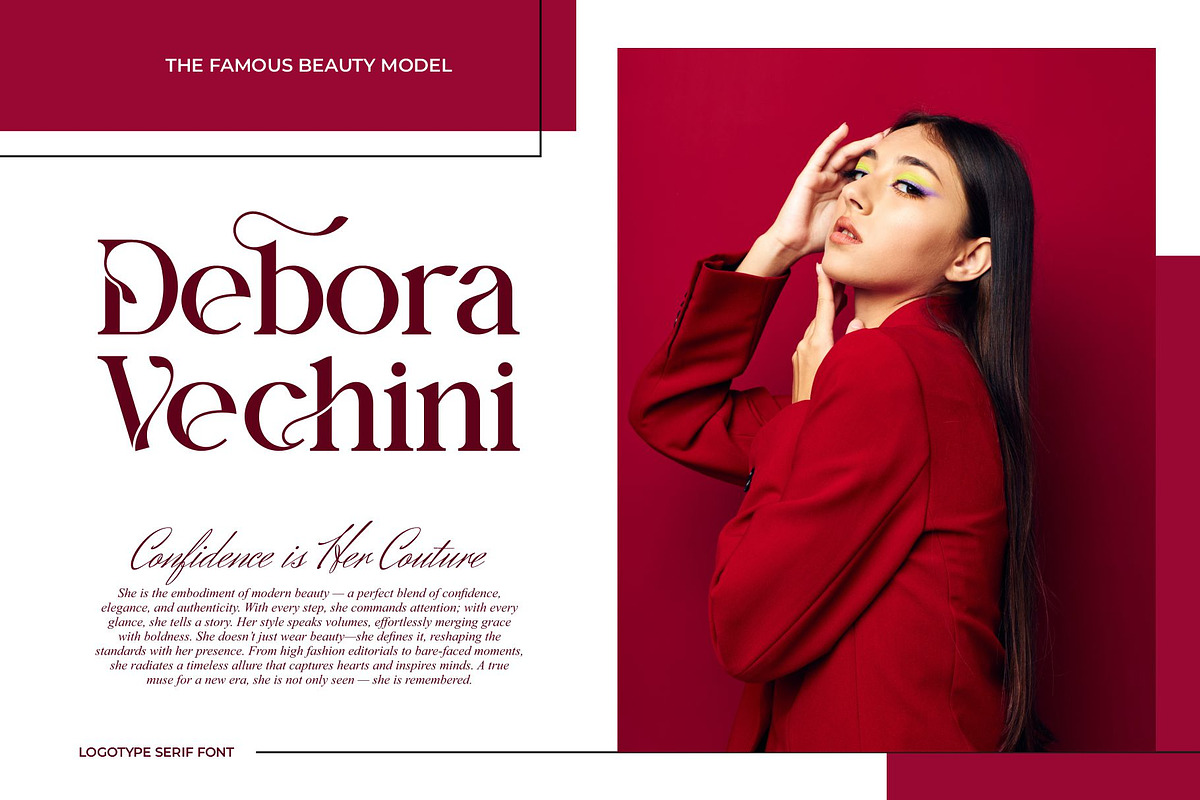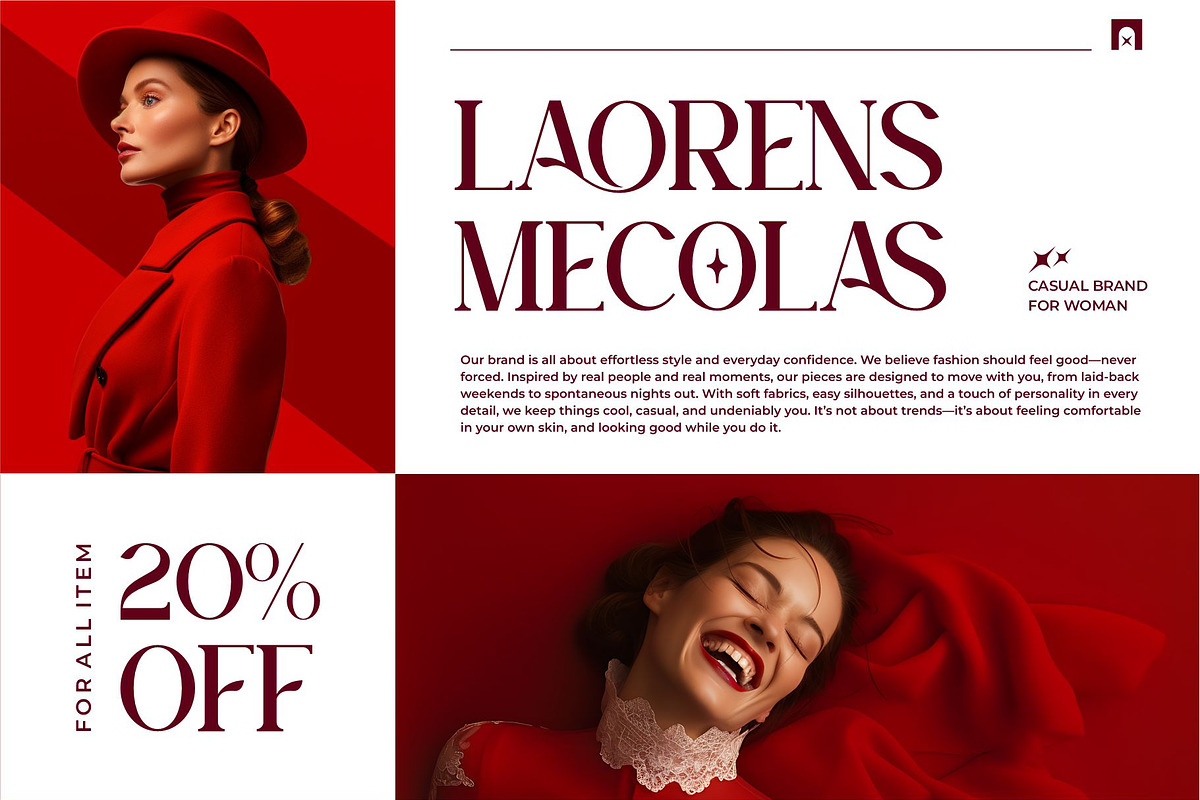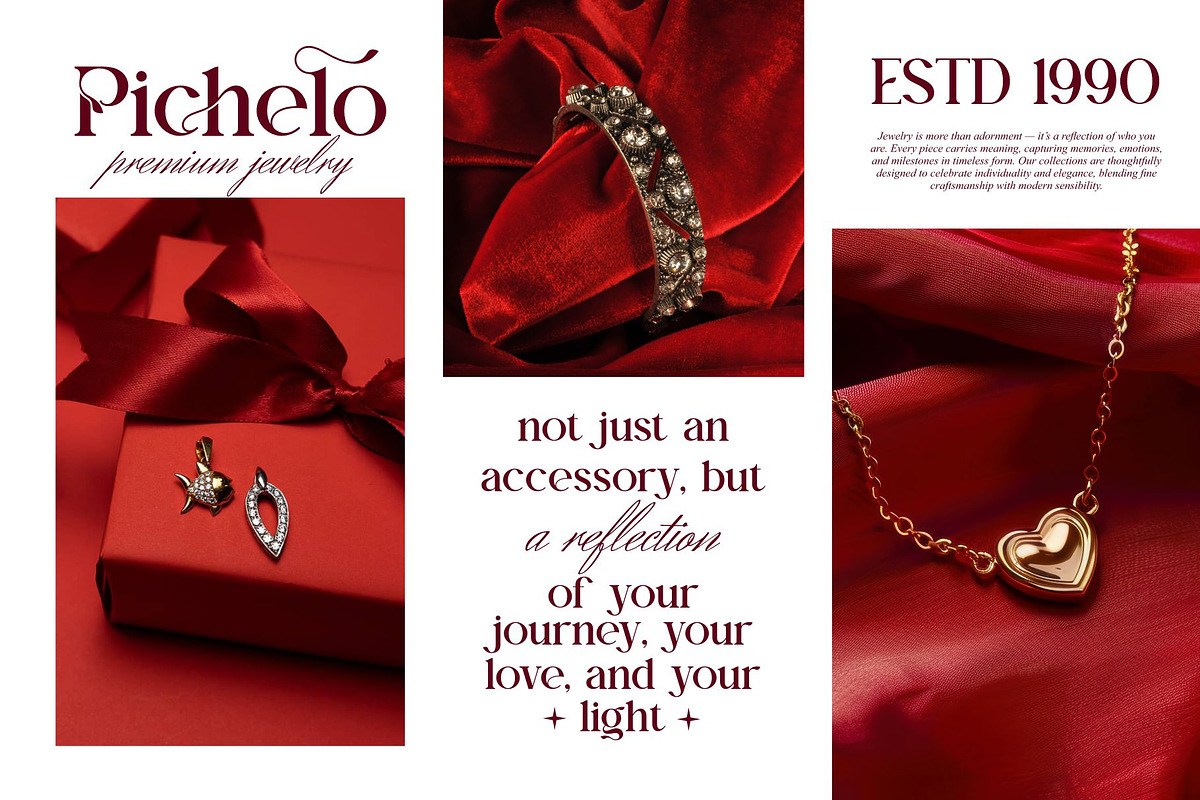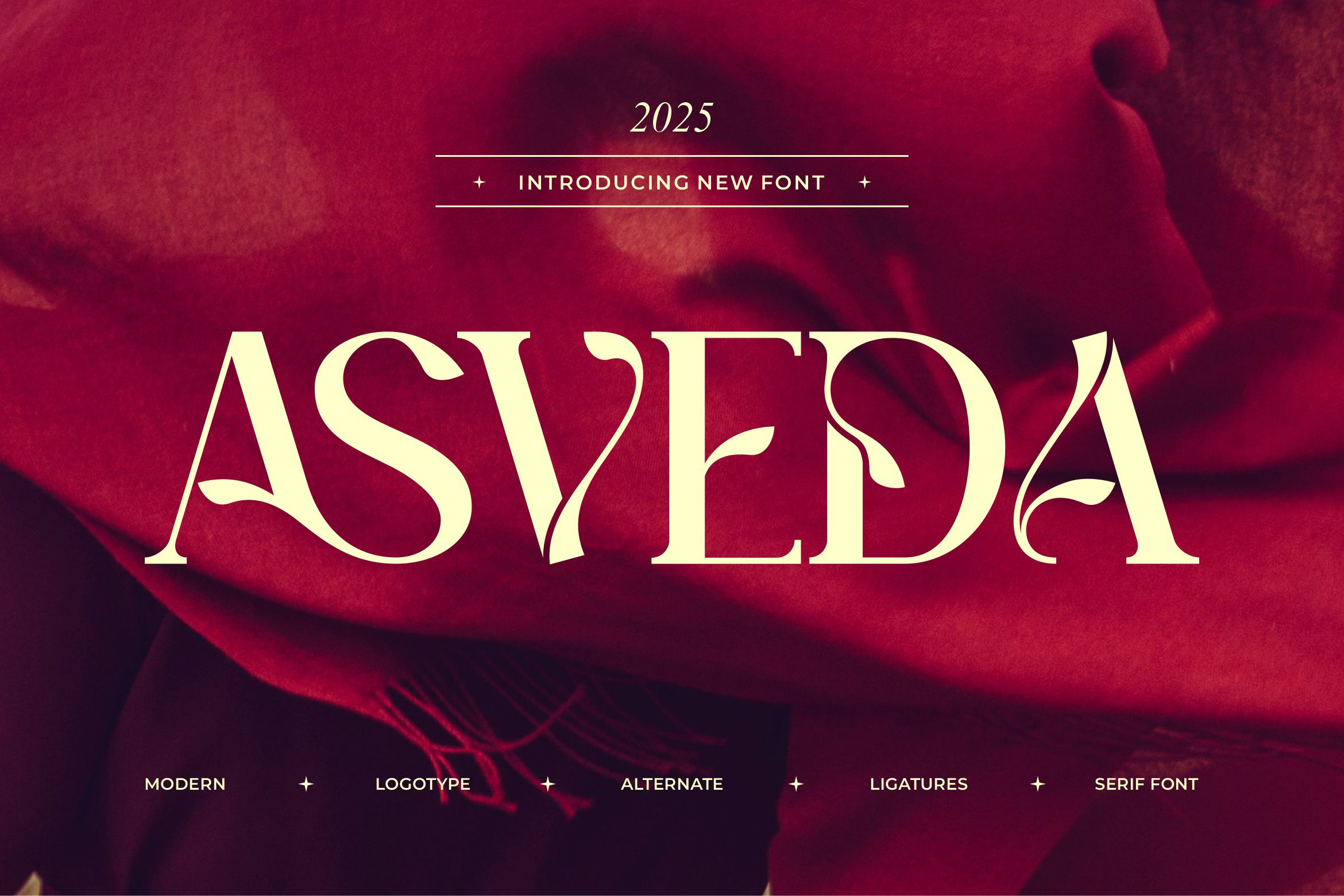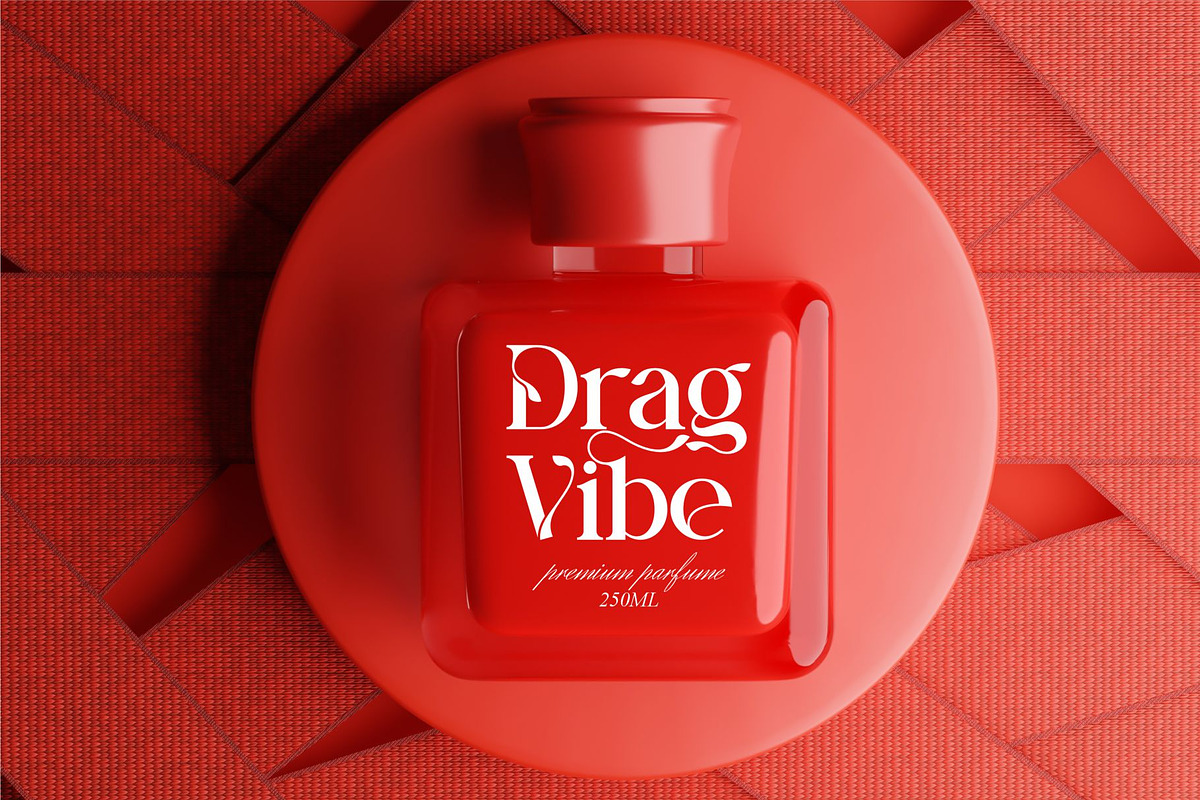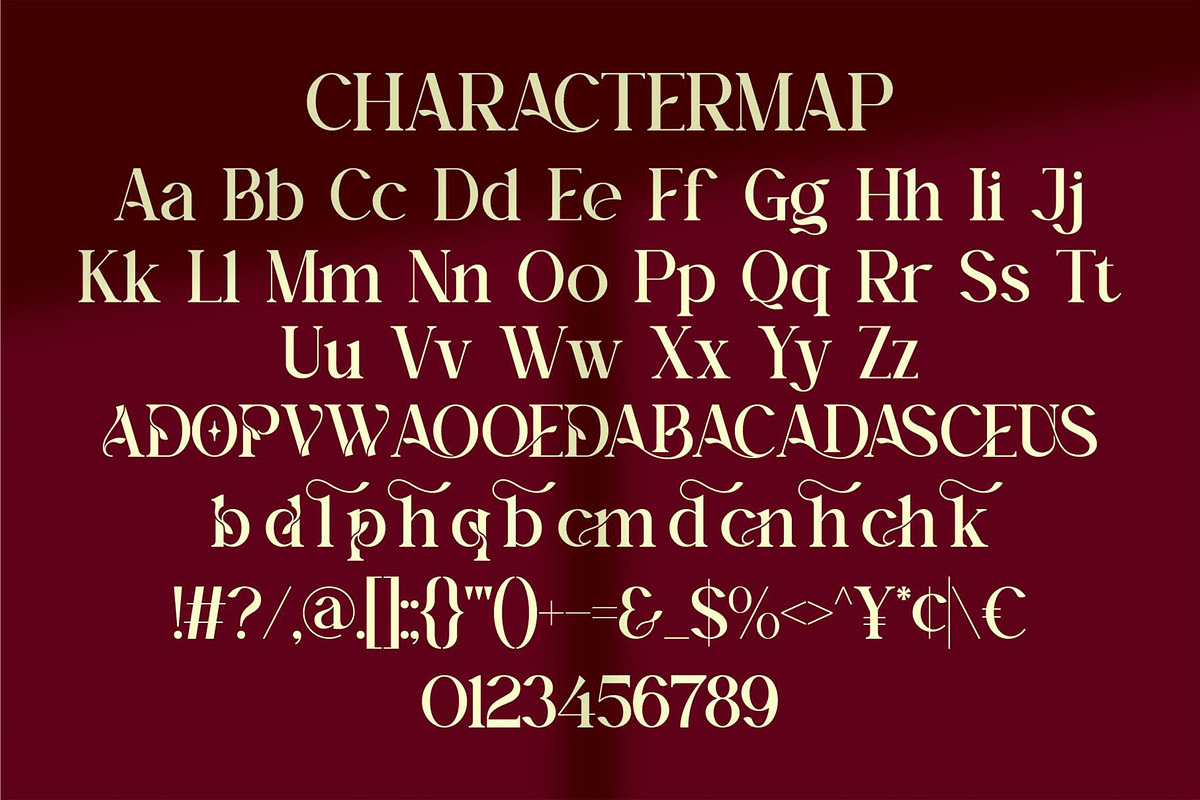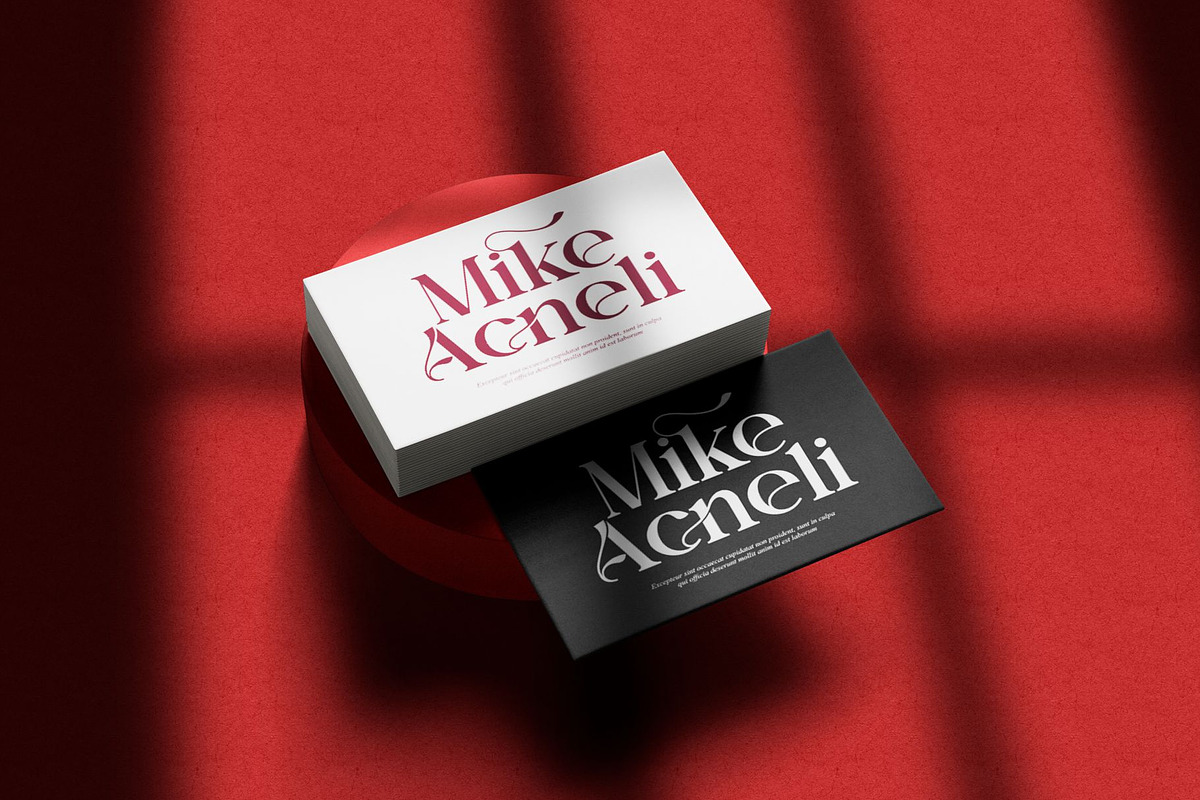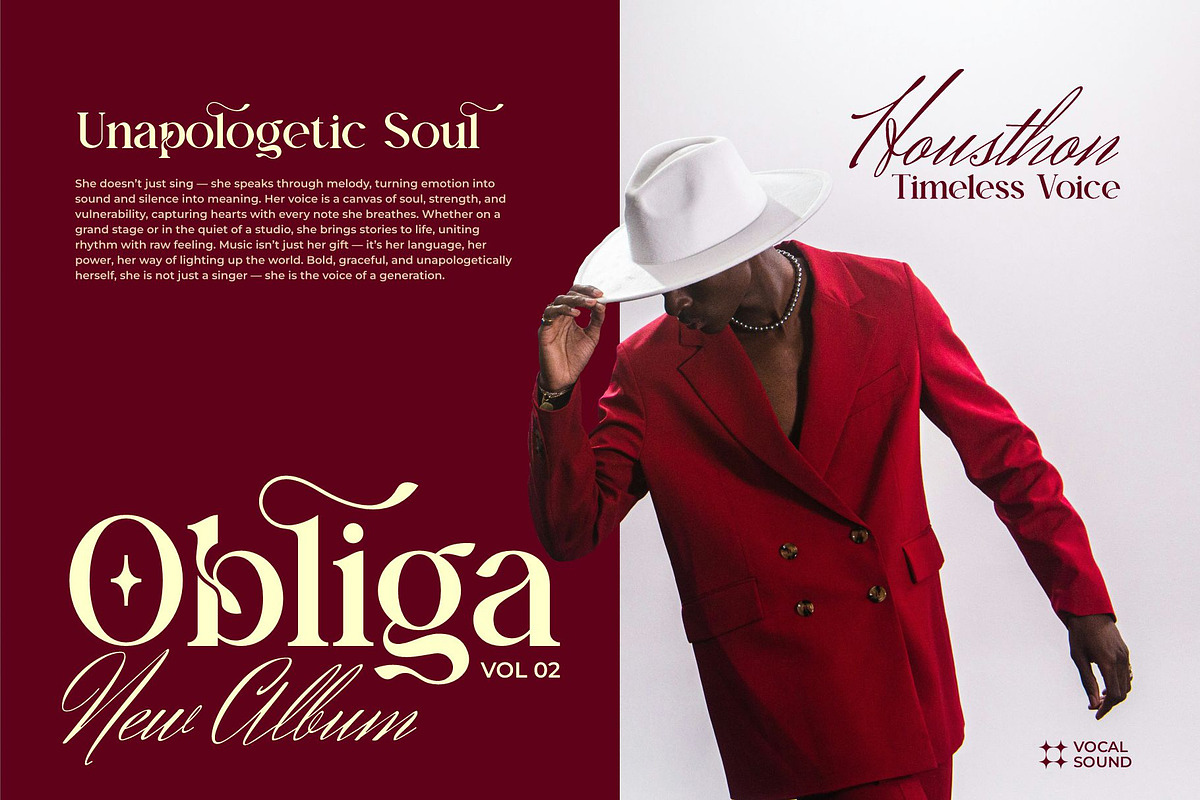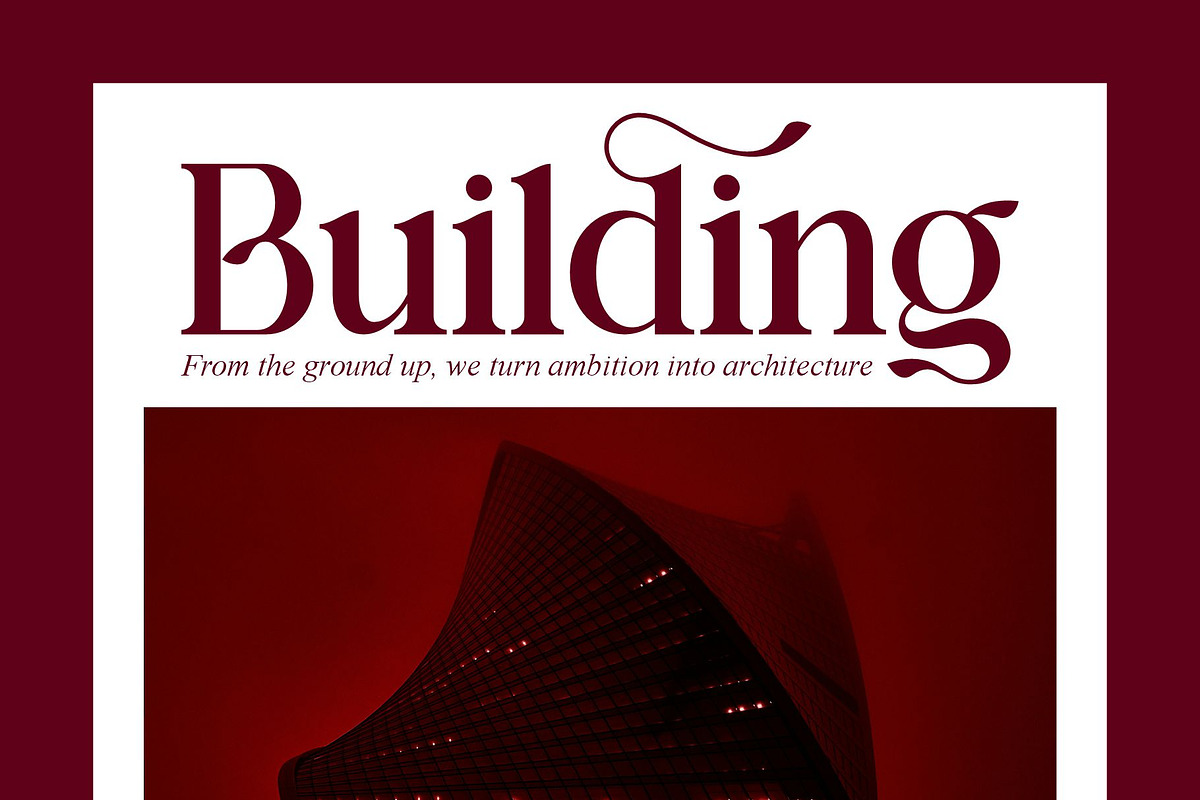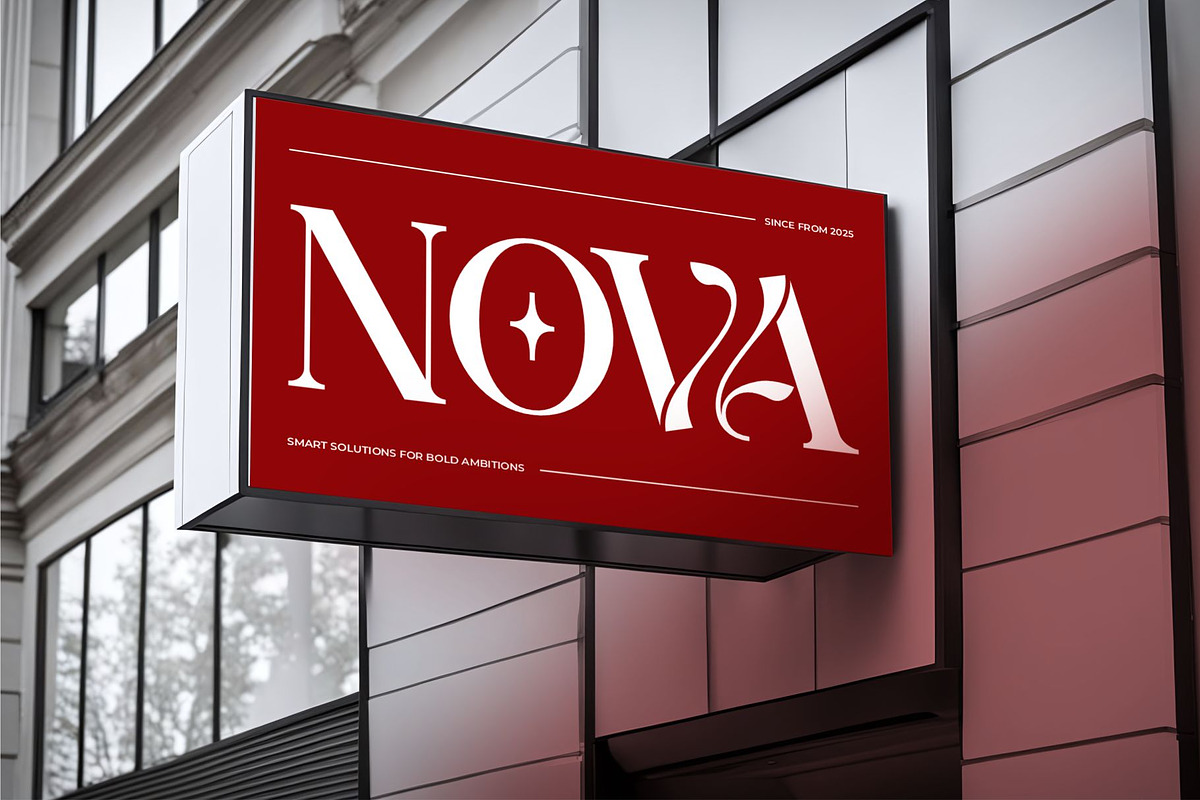
Asveda || Classy Modern Serif Font
Asveda Serif is a modern and classy font type for all branding and logo designs. This modern and classy Serif font has a beautiful character. This font is suitable for invitation card designs, cool logos, movie titles, movie names, business cards, book titles, brand names, and various other designs. Asveda Serif is a smooth serif font that exudes sophistication and the moment. Its stylish ligatures make this font a perfect partner for any project.